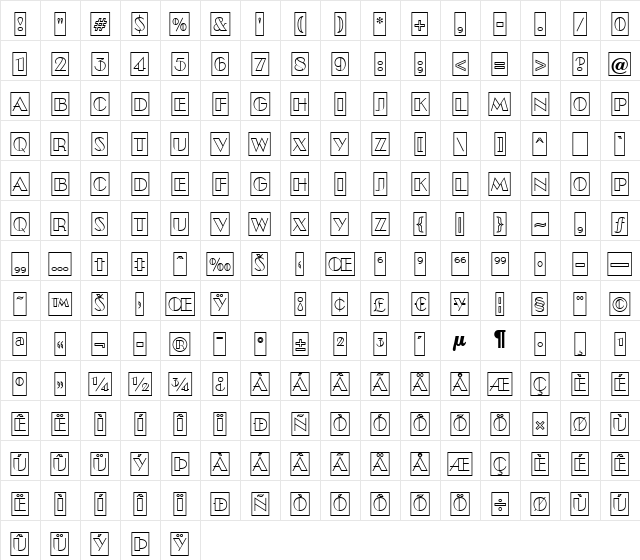
a_BentoCmOtl Regular
Designer: W.Chufarofsky & M.Slutsker
Complete a_BentoCmOtl Regular glyph index. Displaying only characters natively supported by a_BentoCmOtl Regular font.
Design Context for a_BentoCmOtl
a_BentoCmOtl is a composed and adaptable typeface that performs quietly and consistently across a wide range of design contexts.